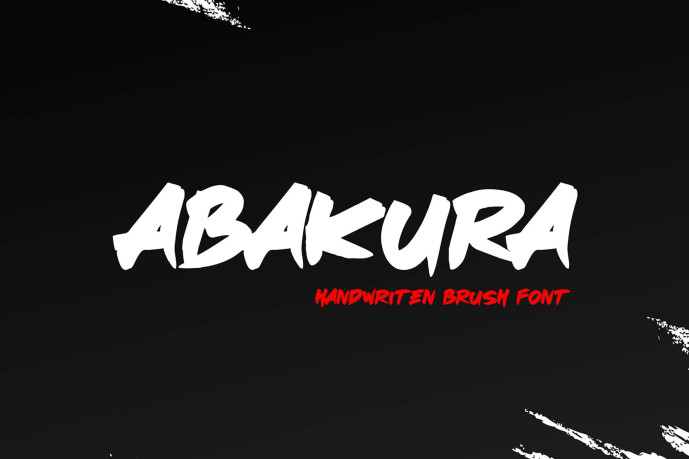
Abakura Brush Font
Designer: figuree
Abakura Brush Font is a strong and expressive display typeface inspired by traditional Japanese brush lettering. Designed in an all-caps style, this font delivers bold strokes, organic brush textures, and a handcrafted feel that works perfectly for eye-catching titles and visual statements.
This font is ideal for designers who need typography that communicates culture, motion, and emotion through lettering. The brush-driven forms create a dynamic rhythm, making Abakura suitable for posters, book covers, video titles, signage, editorial layouts, and themed digital graphics. Its structure allows text to stand out clearly while maintaining a natural, hand-drawn character.
Abakura is built for clarity and impact. The uppercase letterforms ensure consistency across layouts, while the brush details add expressive energy without reducing legibility. Whether used at large scale or as a focal headline, this font helps messages feel strong and intentional.